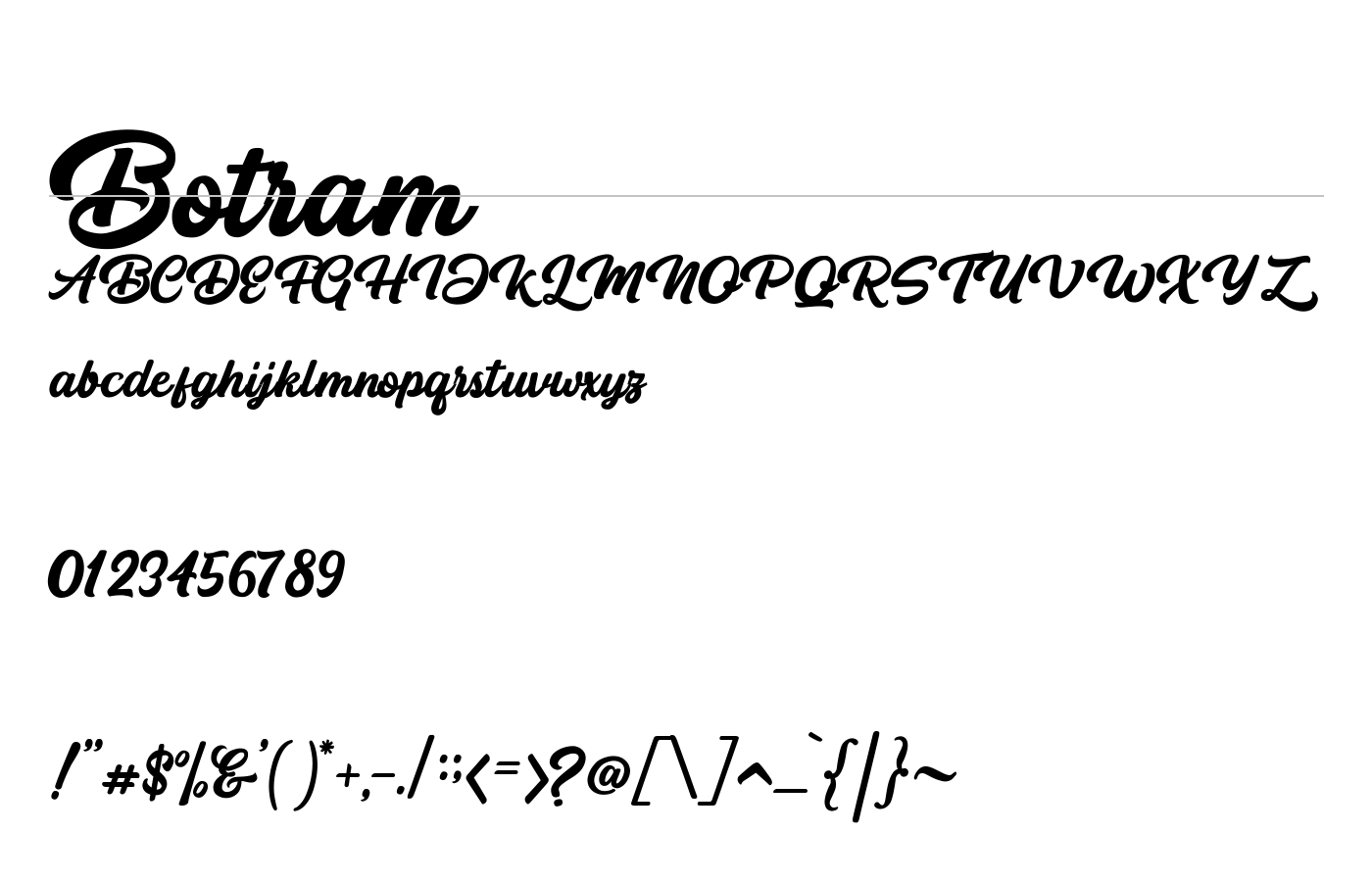
Botram is a bold, cursive script font with smooth, flowing strokes that give it a lively and elegant character. Its moderately high contrast and rounded, connected letterforms make it ideal for creating stylish headlines, invitations, and branding with a classic yet approachable feel. This font works well where a warm, friendly, and confident tone is needed, such as logos, packaging, and decorative text.
Botram Font
About Botram Font
| Font family | Botram Font |
| Designer | Budi Erlangga |